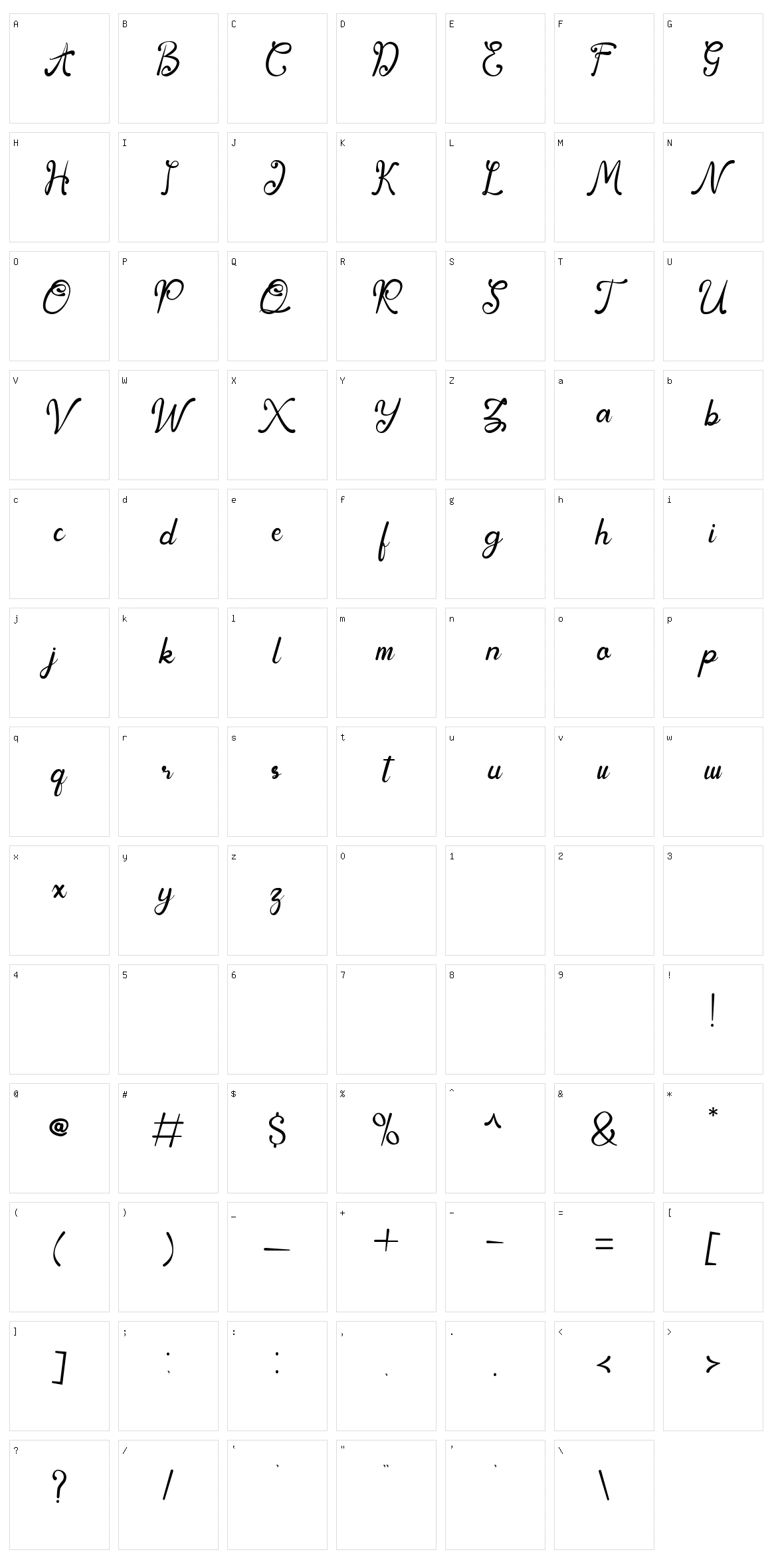
The free font Bulgatin is carefully designed by Muksal Creative, showcasing a thoughtful balance of creativity and usability and falls under the Script font style. When you download the ZIP file, it contains only 26.72 KB of font files, making it lightweight and quick to download. Please review the license details below to understand permitted usage and distribution rights. If license information is not available, we recommend using this font for personal projects only or contacting the author directly for commercial usage permissions.